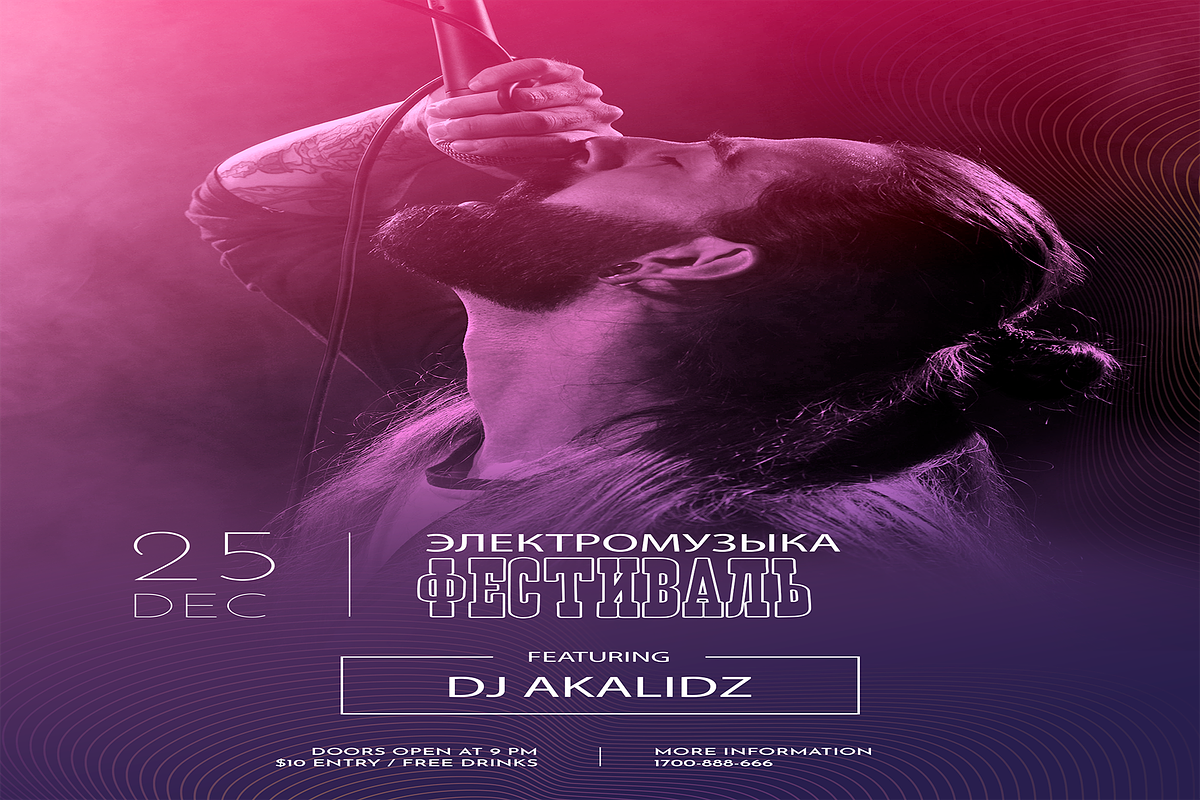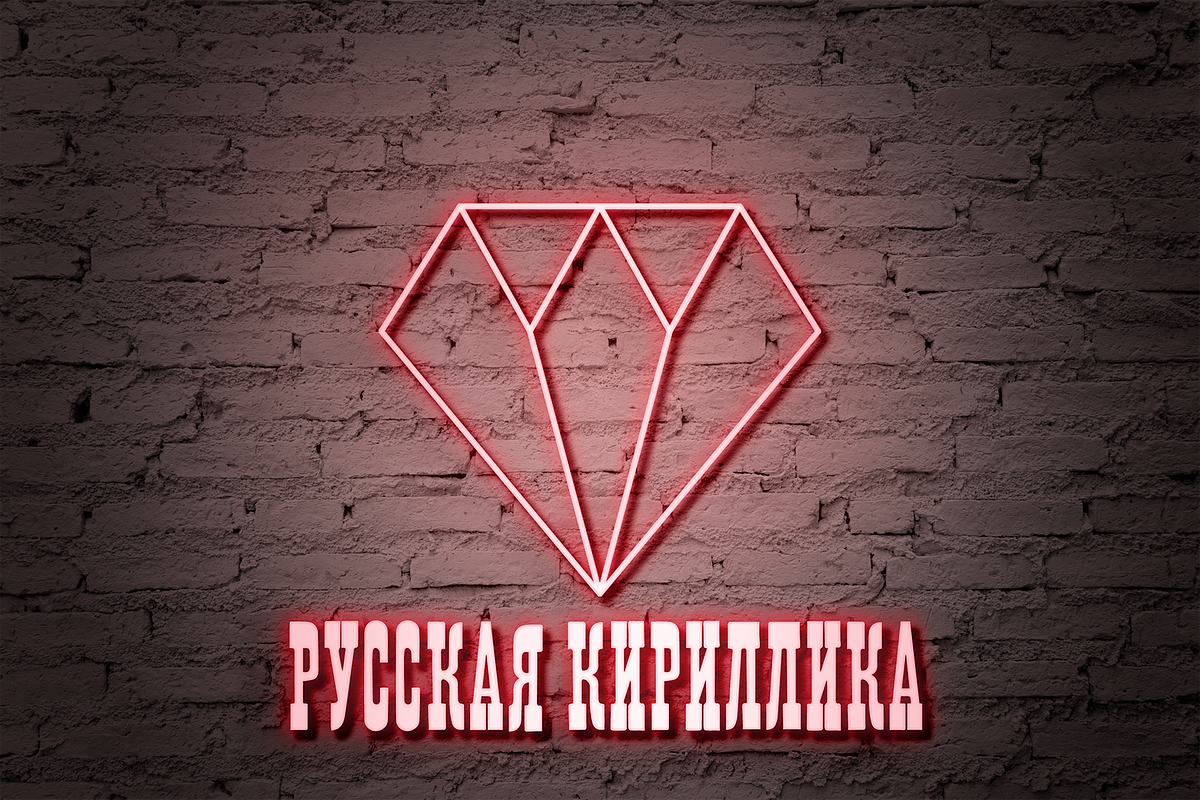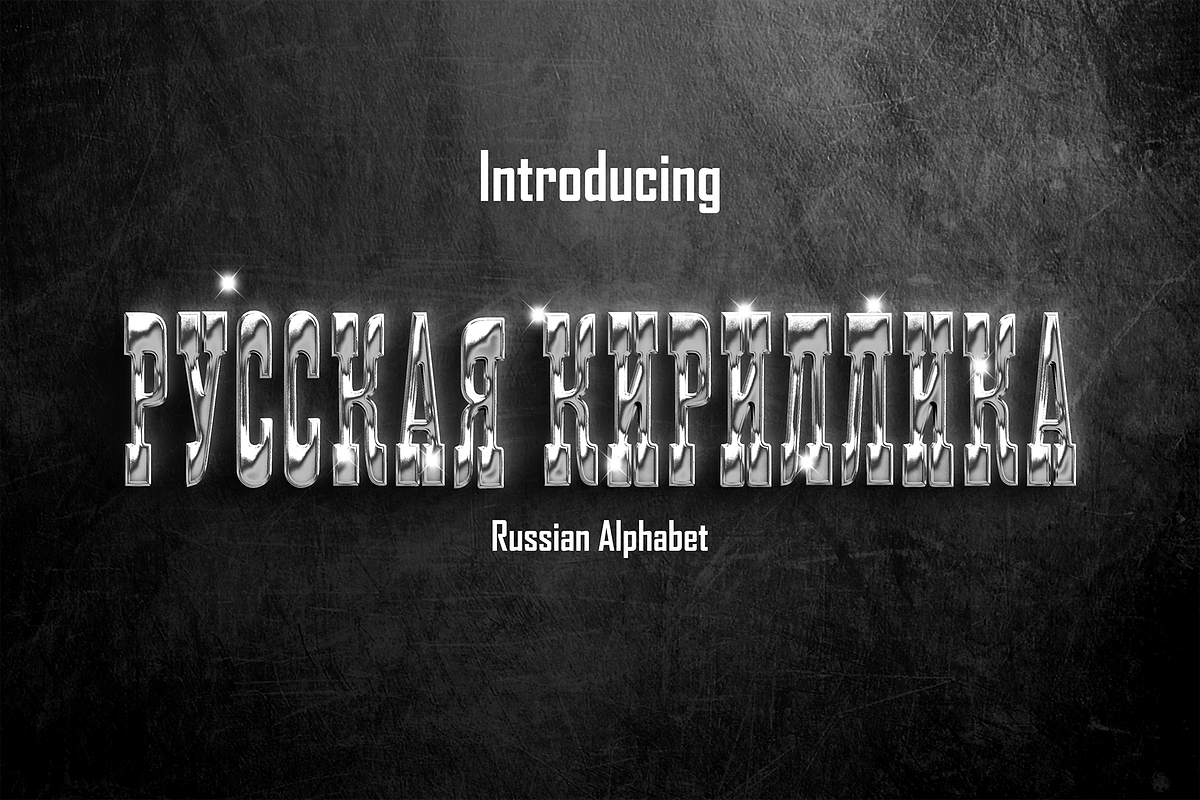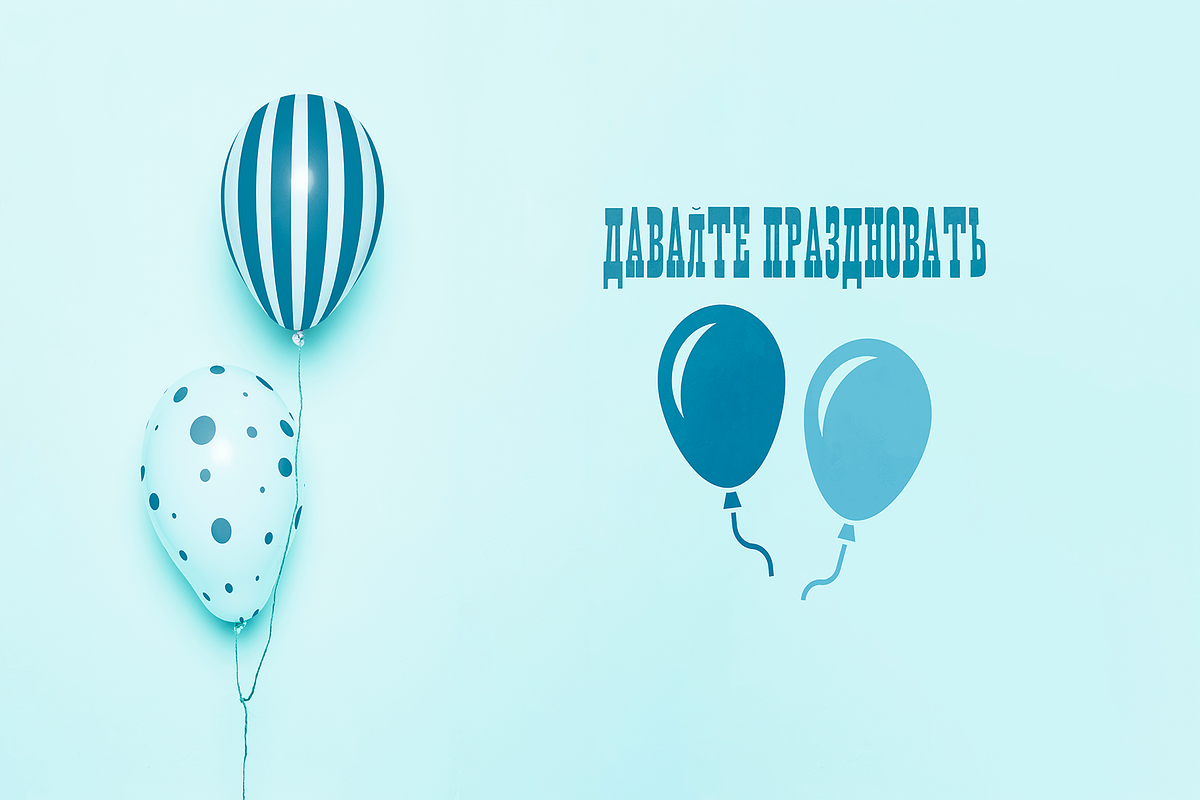
RUSSIAN-CYRILLIC
RUSSIAN-CYRILLIC is a chic and distinct serif font. No matter the topic, this font will be an incredibly asset to your fonts’ library, as it has the potential to elevate any creation.
this font contains only uppercase letters.